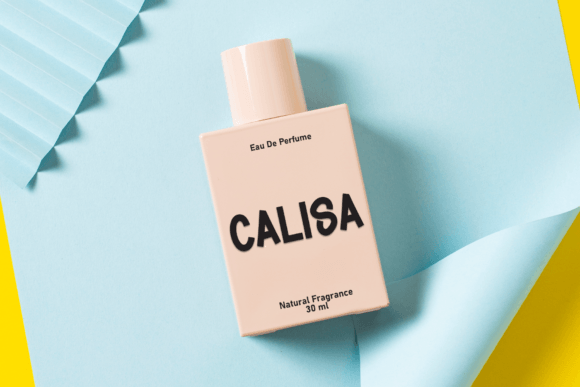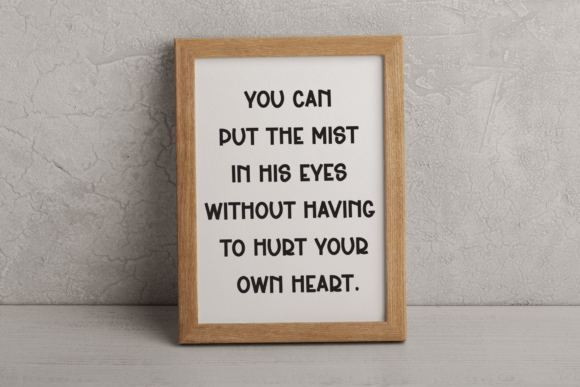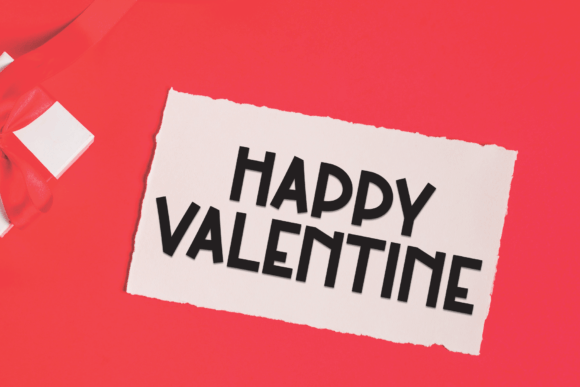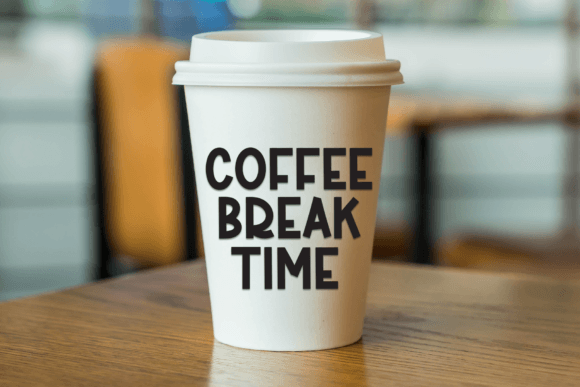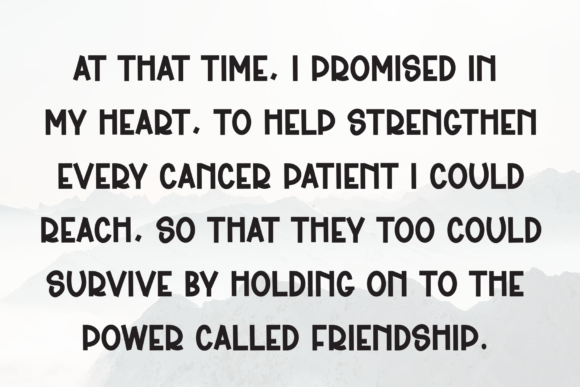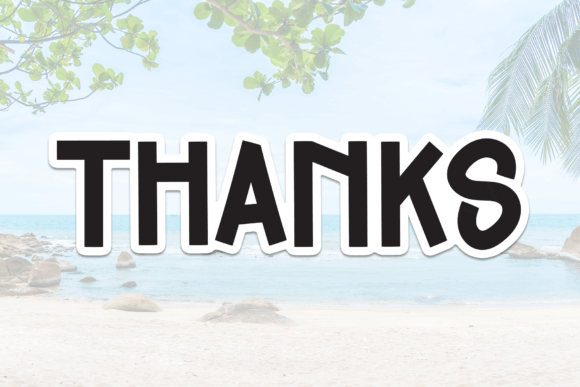
The Beach Font: A Sweet and Friendly Companion for Your Design Journey
I’ll never forget the moment I stumbled upon the Beach font while working on a beach-themed project for a client. I had been searching for the perfect handwritten font to capture the carefree spirit of the ocean, but everything I found seemed either too generic or too over-the-top. That’s when I discovered Beach – a sweet and friendly font that instantly transported me to a sunny coastal getaway. In this article, I’ll share my experience with Beach, its features, and how to make the most of it in your designs.
An Honest Review of Beach Font
What I Love About Beach Font
- ✨ Natural and Unique Style: Beach has a distinct, handwritten feel that sets it apart from more generic fonts.
- ✅ Versatility: Its friendly and approachable vibe makes it suitable for a wide range of projects, from beach-themed designs to more serious applications.
- 💡 OpenType Features: Beach supports OpenType features, allowing for advanced typographic control and customization.
While Beach is an excellent font, it’s not without its quirks. For instance:
- 🤔 Limited Glyphs: Beach has a decent character set, but it may not cover every special character or glyph you need.
- ⚠️ Some Kerning Issues: As with any font, you might encounter kerning issues, especially when pairing Beach with other fonts.
- Experiment with OpenType features, such as stylistic alternates, to add visual interest.
The Story Behind Beach Font
Beach was designed by a talented typographer who wanted to capture the carefree essence of a beach vacation. Inspired by handwritten signs and beachy vibes, the designer crafted a font that’s both friendly and versatile. While the designer’s story might be fictional, the font’s charm is undeniable.
Q: What type of projects is Beach suitable for?
A: Beach is incredibly versatile and can be used for a wide range of projects, from beach-themed designs to more serious applications like branding, packaging, or editorial design.
Q: Does Beach support OpenType features?
A: Yes, Beach supports OpenType features, allowing for advanced typographic control and customization.
Q: Is Beach suitable for body text?
A: While Beach is a beautiful font, it’s best suited for headlines, titles, or short paragraphs. For longer body text, you might prefer a more traditional serif or sans-serif font.